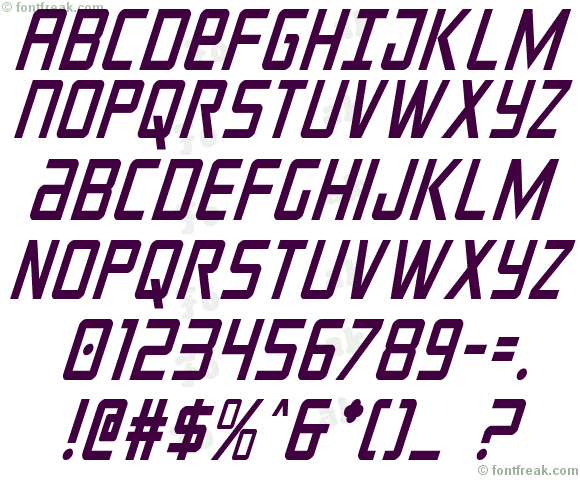
Crixus Condensed
About Crixus Condensed
Crixus Condensed, designed by Daniel Zadorozny, is a striking display font that falls under the category of sans-serif. This font features a bold and condensed design, characterized by its strong stroke weight and minimal contrast, which lends it a modern yet impactful appearance. The letters are tightly spaced, creating a compact look that is ideal for maximizing space while maintaining legibility. Crixus Condensed incorporates a slightly geometric form, giving it a contemporary feel, while the clean lines and sharp angles enhance its visual appeal.
This versatile font is well-suited for a variety of creative applications. It can be effectively used in movie posters, where its bold presence draws attention and conveys a sense of drama. Additionally, Crixus Condensed is perfect for branding projects, particularly for businesses looking to make a strong impression with their logos. Its unique style also makes it an excellent choice for restaurant menus, where clarity and aesthetic impact are essential. Graphic designers may find it particularly useful for creating promotional materials, as its condensed nature allows for flexibility in layout while still being visually engaging.
What truly sets Crixus Condensed apart is its ability to combine boldness with elegance. The font stands out as a modern choice for anyone looking to make a statement in their designs. With a Crixus Condensed font free download available, it's easy to incorporate this dynamic typeface into your next project and elevate your design aesthetic.